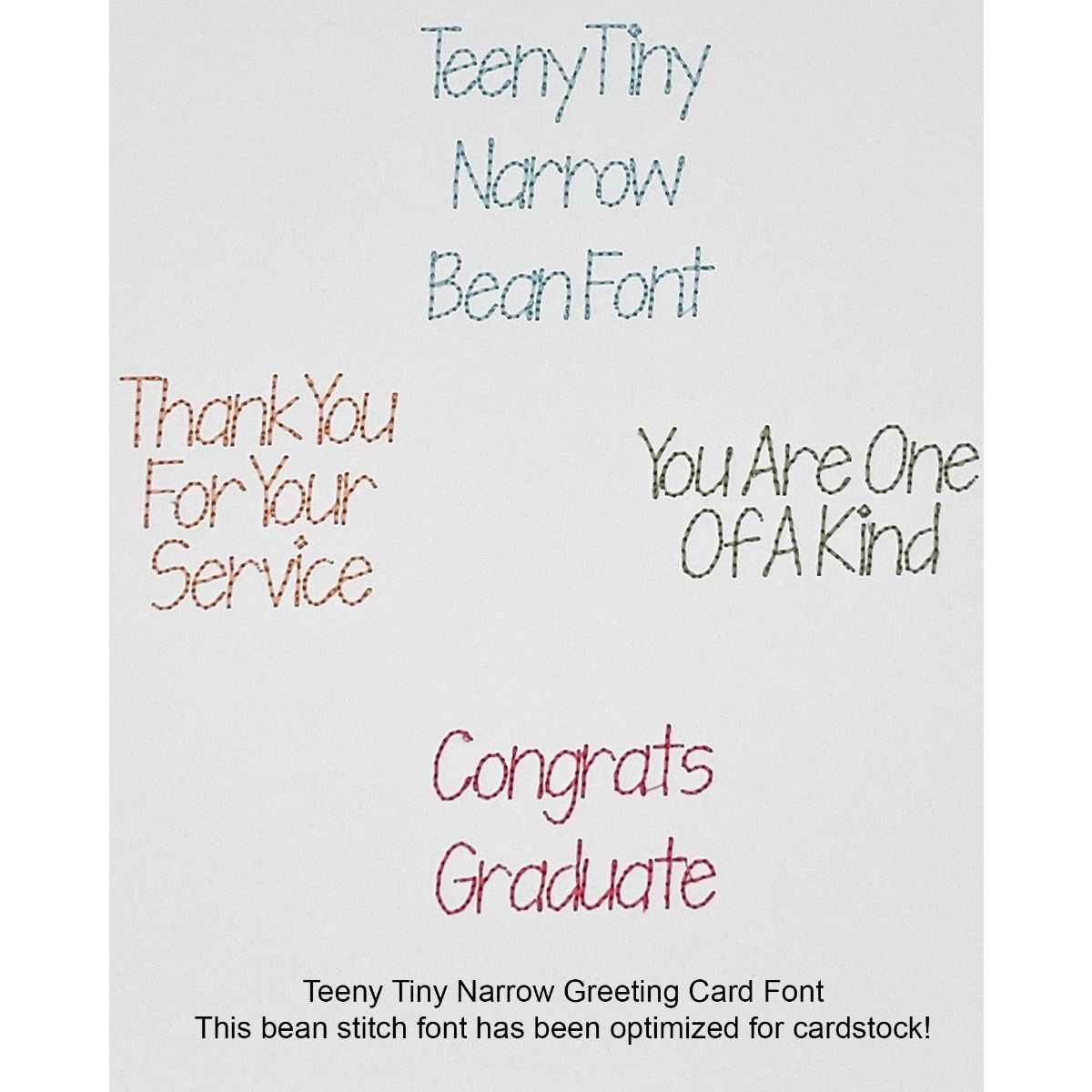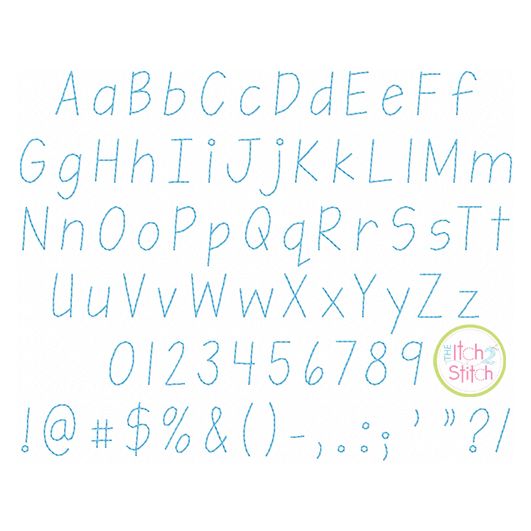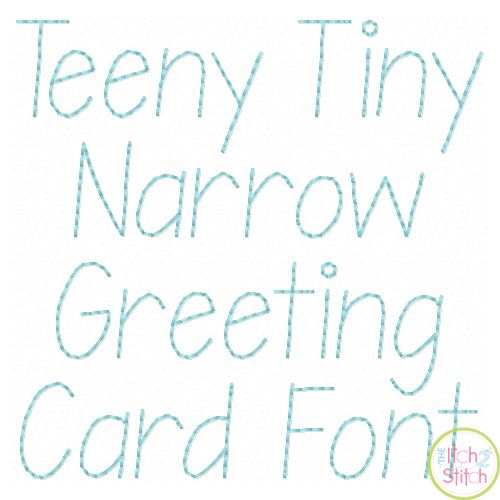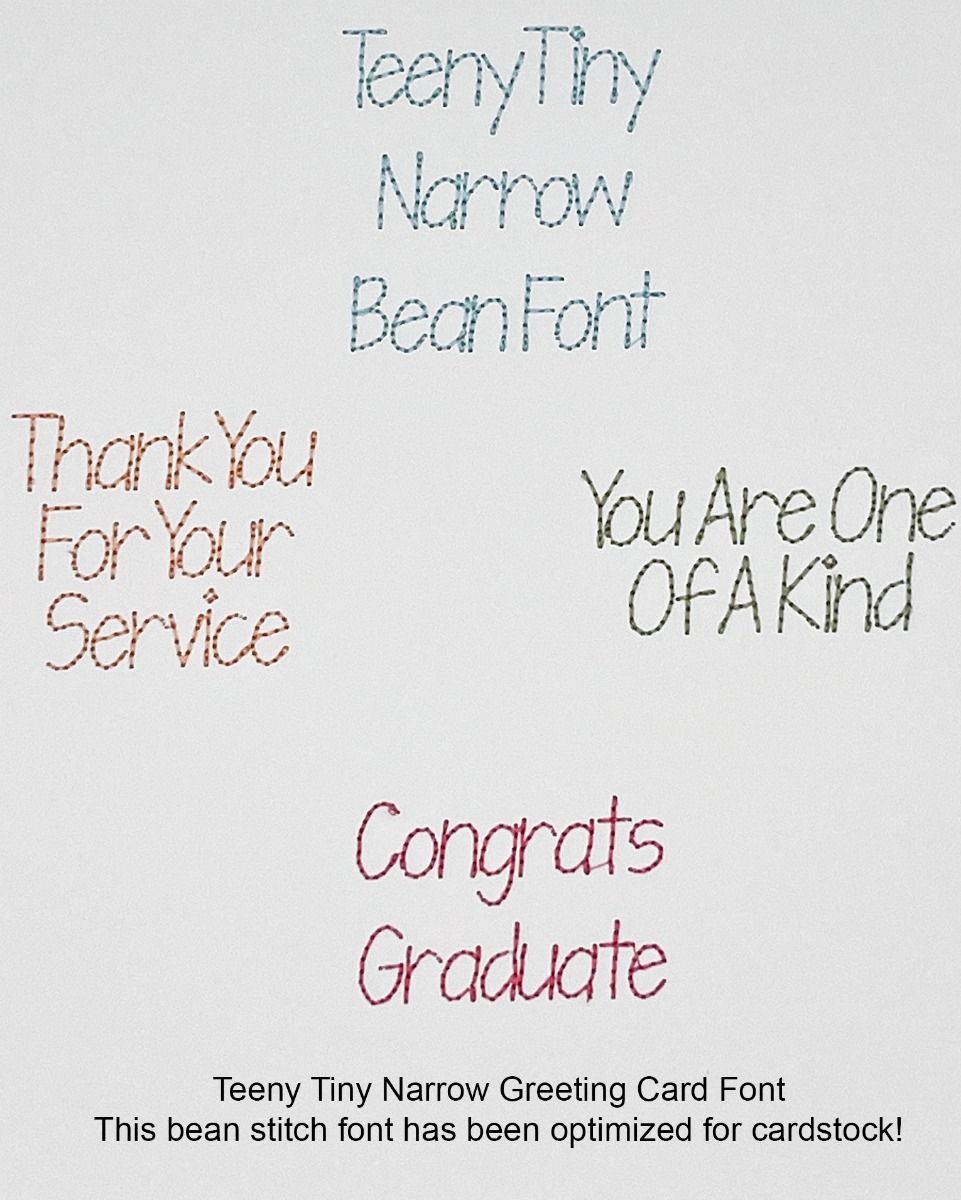
Teeny Tiny Narrow Greeting Card Bean Stitch Embroidery Font
Add a personal touch to our greeting card designs with this triple-bean stitch font! It has been optimized for stitching on watercolor paper (half-inch size is shown).